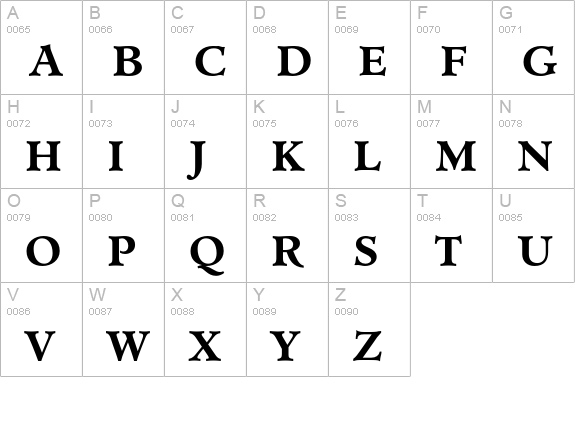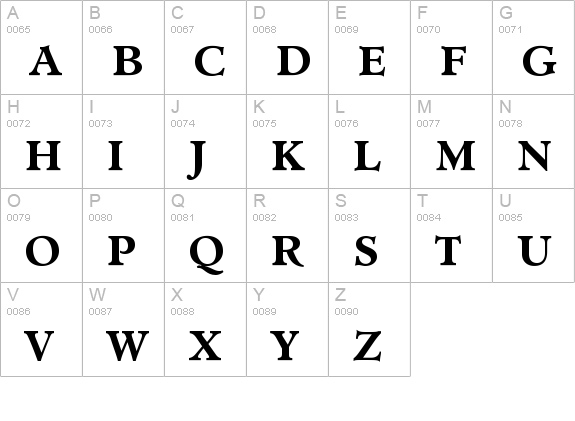
Minister Bold is a strong, high-contrast variant in the Minister typeface family \xE2\x80\x94 well suited to headlines, attention-grabbing titles, and strong calls-to-action.
Minister Bold font is a striking and commanding typeface that exudes strength and authority. Its bold and confident appearance makes it perfect for headlines, titles, and other attention-grabbing design projects. With its clean lines and sharp edges, Minister Bold demands attention and leaves a lasting impression. What makes Minister Bold even more appealing is that it is available for free download at FontsMarket.com. This means you can easily access this powerful font and use it in your projects without any cost. Whether you are creating posters, banners, logos, or any other design work that requires a strong and impactful font, Minister Bold is the perfect choice. Download it today and add a touch of boldness to your designs.